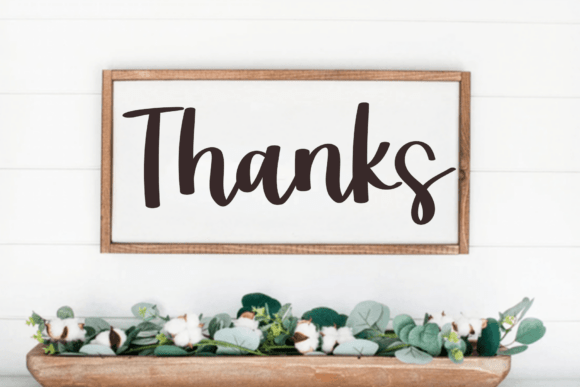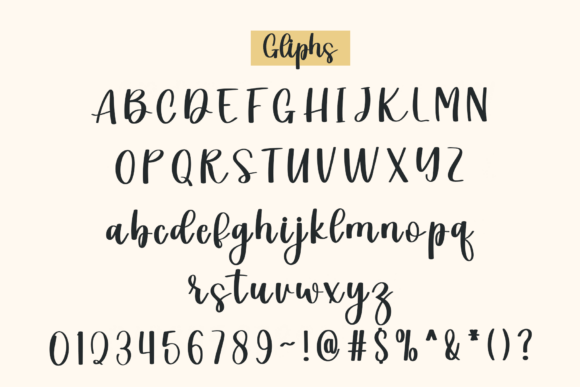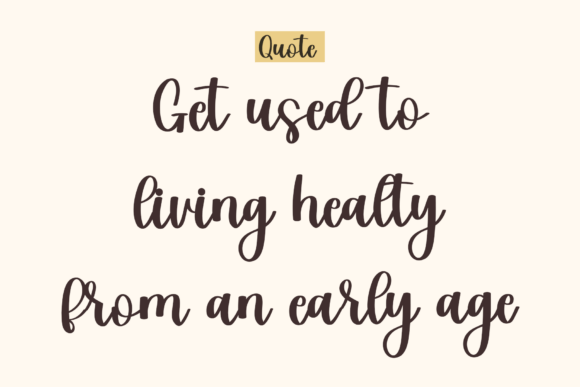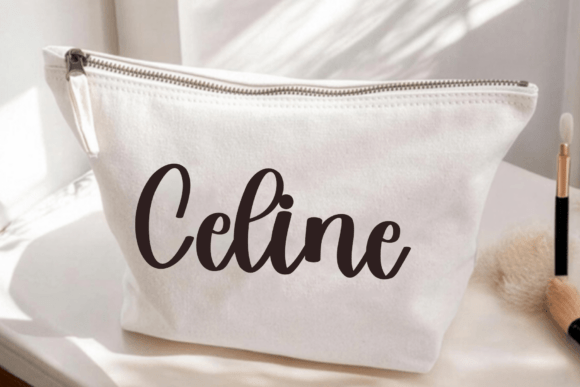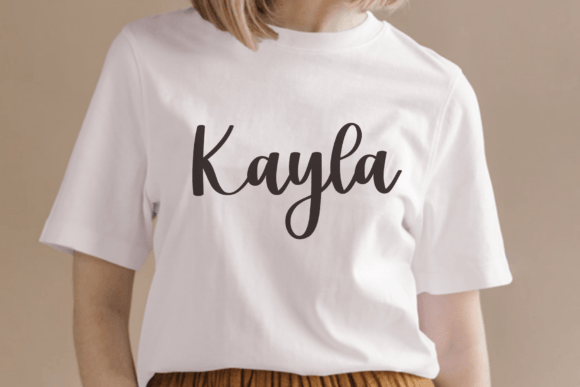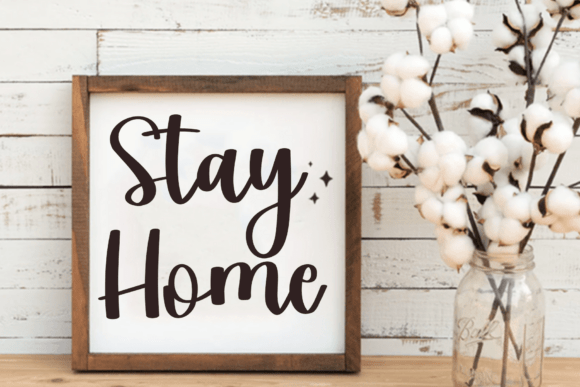
Introducing Daily Life Font: The Perfect Holiday Companion for Designers and Crafters
The holiday season is upon us, and with it comes the need for designs that capture the magic and wonder of this special time of year. For designers and crafters looking to add a touch of festive flair to their projects, the Daily Life Font is here to help. This beautifully crafted typeface is designed to bring a cheerful and nostalgic ambiance to your words, making it perfect for greeting cards, gift tags, and holiday-themed projects.
Daily Life Font is a decorative typeface that embodies the spirit of the holiday season. Its whimsical design and enchanting elements are sure to add a touch of magic to your designs. With its unique and festive style, this font is sure to stand out from the crowd and make your projects shine. Whether you’re designing holiday greeting cards, crafting gift tags, or creating festive decorations, Daily Life Font is the perfect companion to help you spread cheer and joy.
Key Features of Daily Life Font
So, what makes Daily Life Font so special? Here are just a few of its key features:
- Decorative Elements: Daily Life Font features a range of decorative elements that add a touch of festive flair to your designs. From snowflakes to holly leaves, these elements are sure to bring a smile to the face of anyone who sees them.
- Whimsical Flair: This font has a playful, whimsical quality that’s sure to capture the spirit of the holiday season. Its unique design makes it perfect for creating festive and fun designs that are sure to delight.
Daily Life Font is perfect for a wide range of holiday projects, including:
- Greeting Cards: Add a touch of festive flair to your holiday greeting cards with Daily Life Font. Its decorative elements and whimsical design make it perfect for creating cards that are sure to delight.
- Gift Tags: Make your gift tags stand out with Daily Life Font. Its unique design and festive elements are sure to add a touch of magic to your gifts.
- Holiday Decorations: Use Daily Life Font to create festive decorations, such as garlands, banners, and signs. Its whimsical design and decorative elements are sure to add a touch of holiday cheer to any room.
Why Choose Daily Life Font?
So, why choose Daily Life Font for your holiday projects? Here are just a few reasons:
- Unique Design: Daily Life Font has a unique and festive design that’s sure to stand out from the crowd.
- Versatile: This font is perfect for a wide range of holiday projects, from greeting cards to gift tags and decorations.
Whether you’re a professional designer or a crafter looking for a fun and creative way to add some holiday cheer to your projects, Daily Life Font is the perfect choice. Its unique design, ease of use, and versatility make it a must-have for anyone looking to create festive and fun designs that are sure to delight. So go ahead, get creative, and let Daily Life Font bring a touch of holiday magic to your words!